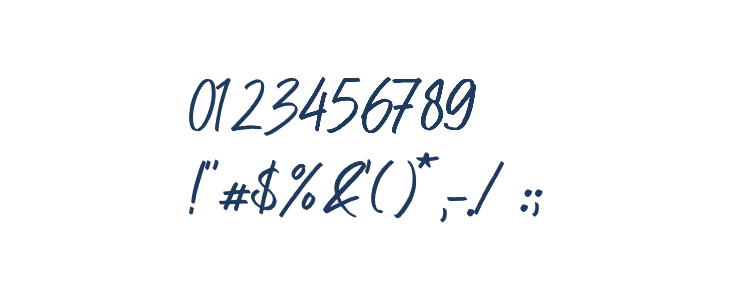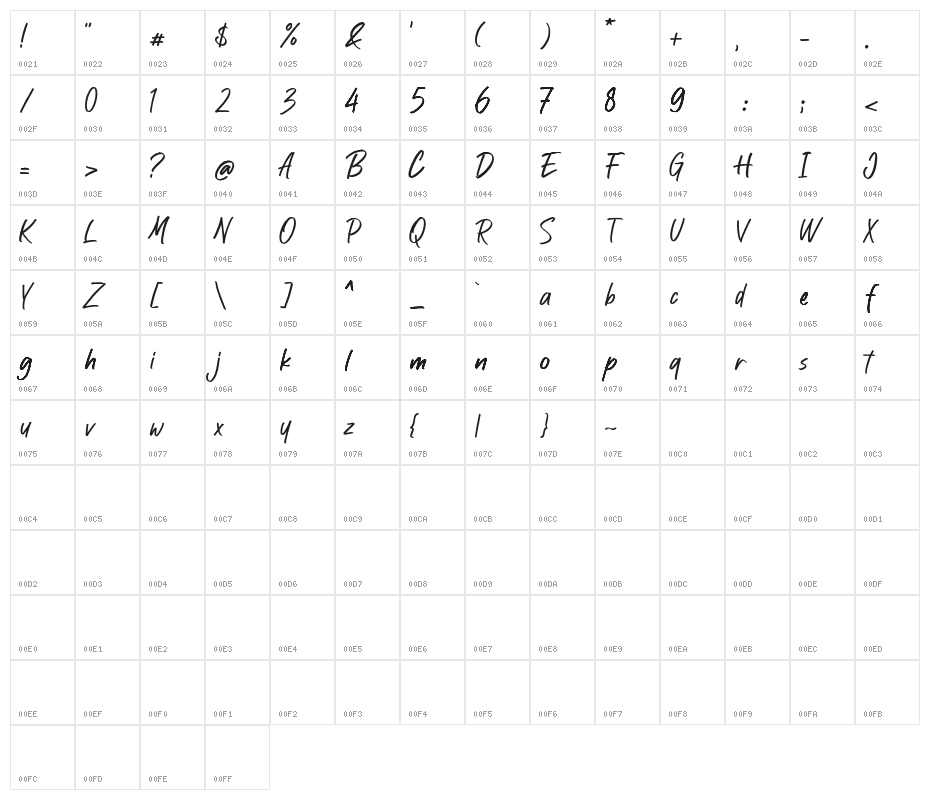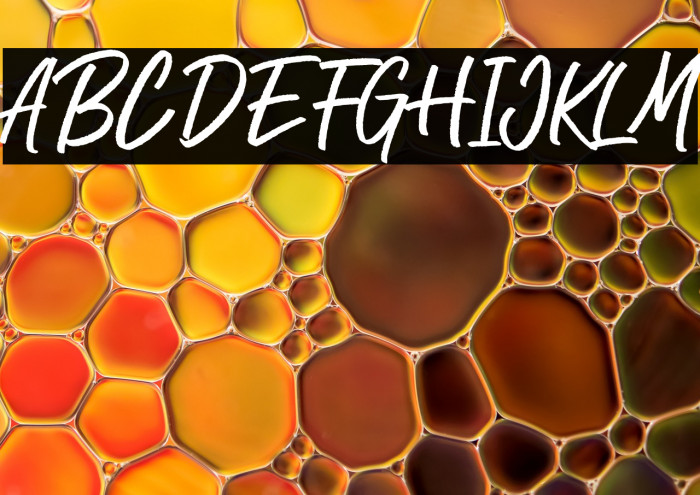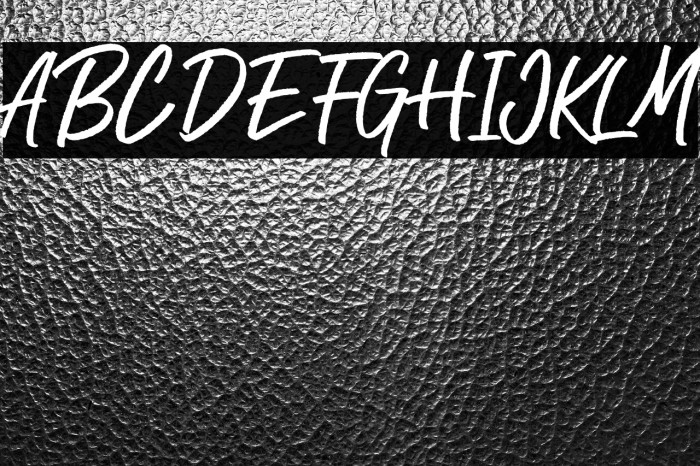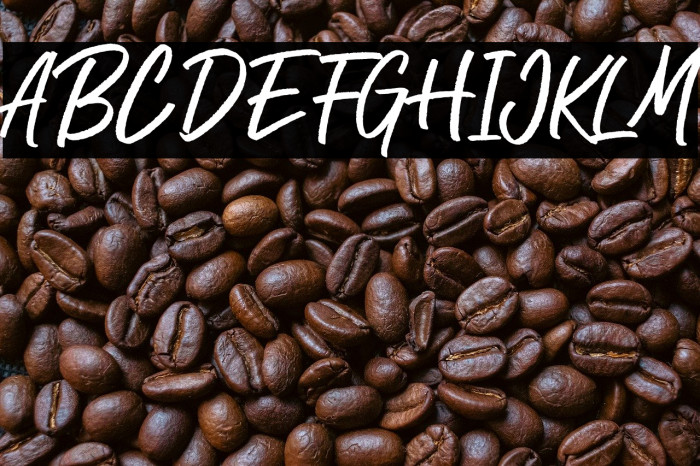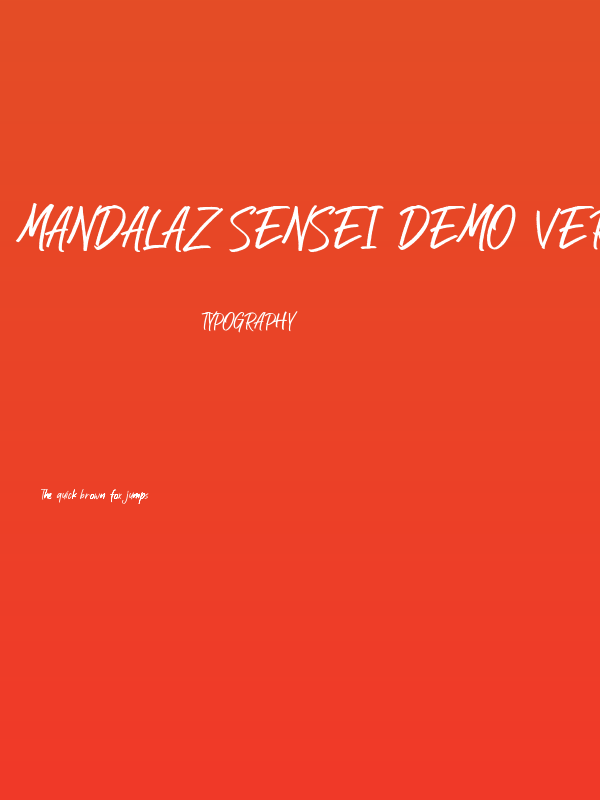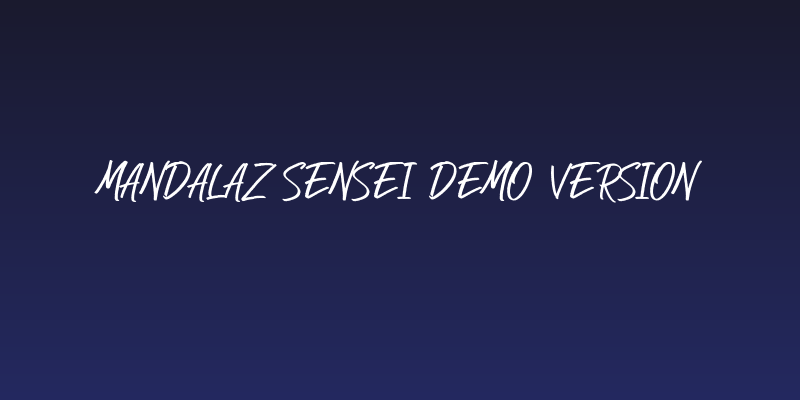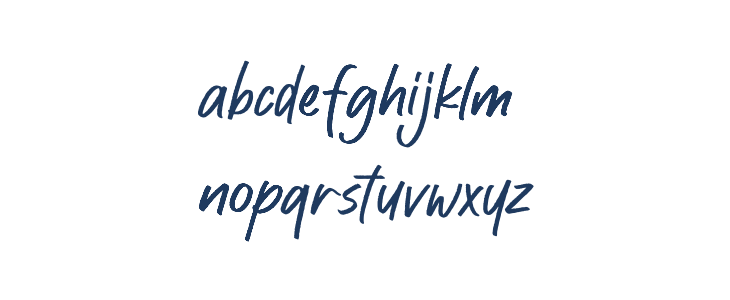
Mandalaz Sensei Demo Version Font
Mandalaz Sensei Demo Version Description
This font exudes a dynamic and energetic vibe with its handwritten style, characterized by fluid and slightly irregular strokes that mimic natural handwriting. The letters are slightly slanted, giving a sense of motion and spontaneity. The uppercase letters are bold and prominent, while the lowercase letters maintain a consistent flow, enhancing readability. The numerals and special characters are crafted with the same lively touch, ensuring a cohesive look across all elements. This font is perfect for projects that require a personal and informal touch, such as invitations, greeting cards, or creative branding.
| Use Case | Logos, Headlines, Informal text |
| Proposed Projects | Ideal for invitations, greeting cards, creative branding, and personal projects. |